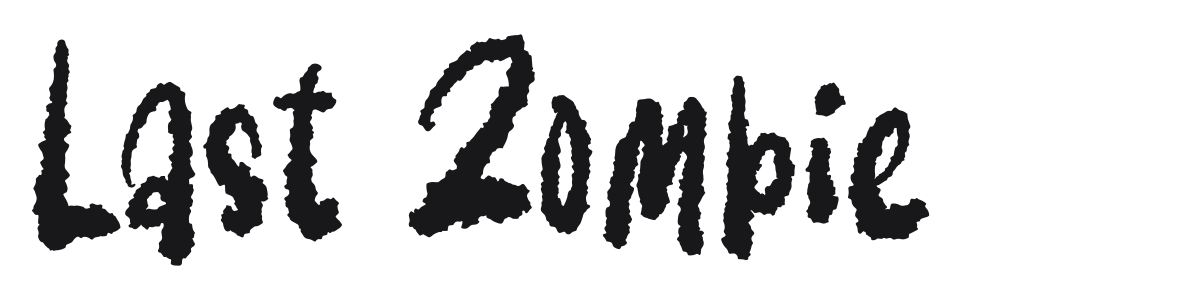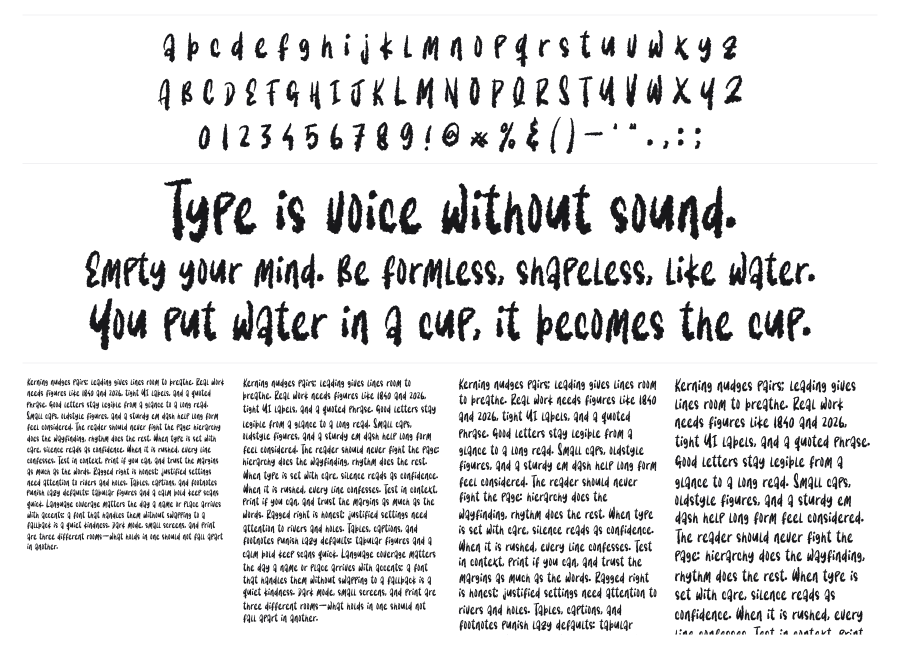
Last Zombie
Last Zombie is a distressed horror display font built from rough, decayed strokes that look like they've been gnawed and worn away. The irregular edges and unstable hand-drawn construction give it an authentic sense of decomposition and dread. Strong for horror posters, game titles, and anything that needs a genuinely unsettling hand.